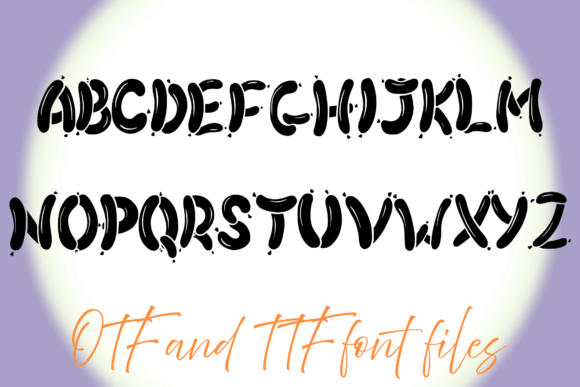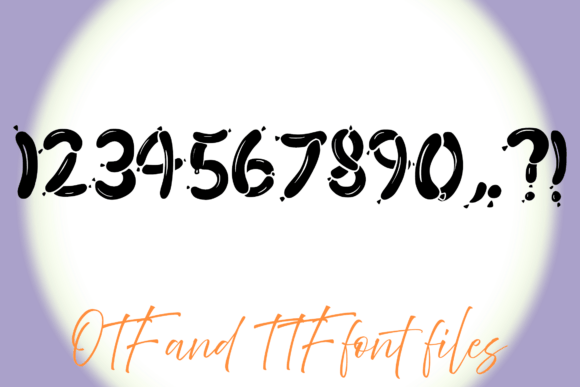
Have you ever been brainstorming ideas for a new project, only to feel stuck because it just doesn’t feel fun enough? That’s where the magic of the right font comes in. Imagine a font that screams ‘celebration’ and ‘joy’ – a font that makes you want to grab a handful of colorful balloons and run wild.
Enter the adorable Balloon Kid Font, a display font that’s guaranteed to add a playful twist to any design. With its endearing characters and vibrant personality, this font is the perfect addition to any project that needs a little extra oomph. Whether you’re creating a birthday invitation, a children’s book, or a social media campaign, the Balloon Kid Font is sure to bring a smile to your face and make your designs stand out.
- Unique Characteristics: The Balloon Kid font features a distinctive, childlike design with rounded edges and a playful feel, making it perfect for children’s books, educational materials, and other projects that require a whimsical touch.
- Font Style: The font has a bold and italic style, adding to its playful and energetic personality.
Designer Review: Balloon Kid Font
✨ The Balloon Kid Font has a certain charm to it. It’s a cute, playful font that would be perfect for children’s books, cartoons, or any other project that needs a lighthearted feel. The font’s rounded edges and soft curves make it a joy to read, and it’s easy to see why it’s a fan favorite among designers.
✨ The font’s versatility is another major plus. It comes in a range of weights and styles, from light to bold, and even has some fun variations like a sans-serif version. This makes it easy to adapt to different design needs, from headlines to body text.
- ⚠️ The font may not be the best choice for serious or professional projects, as it’s a bit too playful and casual.
- ⚠️ The font’s rounded edges can make it difficult to read in certain contexts, such as in small sizes or when used for large blocks of text.
- ⚠️ Some users may find the font a bit too quirky or gimmicky, which could be a turn-off for those who prefer more traditional or straightforward typography.
Overall, the Balloon Kid Font is a fun and versatile font that’s perfect for projects where you want to add a touch of whimsy and playfulness. While it may not be the best choice for every design project, it’s definitely worth considering for the right application.
Tips for Getting the Most Out of Balloon Kid Font
Use Balloon Kid Font for whimsical and playful designs, such as:
- Children’s party invitations
- Toy packaging and branding
- Cartoon and comic book illustrations
Remember to pair Balloon Kid Font with complementary fonts and colors to create a visually appealing design.
Q: What is the recommended font size and line height for optimal readability with the Balloon Kid Font?
The recommended font size for the Balloon Kid Font is between 12-24 points, depending on the context and intended audience. For optimal readability, it is also recommended to use a line height of at least 1.2-1.5 times the font size. This will help ensure that the text is clear and easy to read, even at smaller font sizes.